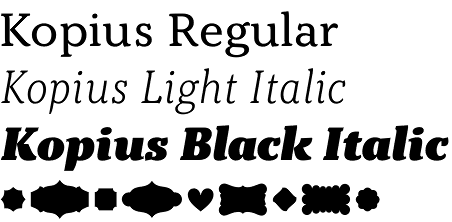
Kopius by Sibylle Hagmann – a typeface with great ambiance
Kopius is a contemporary serif font family designed by the US based designer Sibylle Hagmann – a graduate of Basel School of design, and published by her Kontour type foundry. This is her debut on our site and we hope to review plenty more of her projects. Apart from Kopius, her font collection includes typefaces like Odile, Axia, Elido and the award winning Cholla. The main interest of Sibylle Hagmann is to create unique typefaces with great focus on details such as individual letterforms and glyph systems.
Her latest work – Kopius font is inspired by the East German typeface Liberta – an Antigua type family, designed by Herbert Thannhaeuser in the 1950’s. Like its predecessor, Kopius is a very functional face that offers one-of-a-kind novel glyph construction. Its robust characters, round and open counters and texture-rich look create great ambiance and provoke feelings of friendliness and relaxation while the slender curved stems account for pleasant and easy reading. Kopius’ colorful appearance creates the illusion of brush stroke, which adds to its unique individuality. All that said, Kopius could be perfect for multiple purposes including display and editorial use and especially for packaging and branding.
Sibylle Hagmann spared no effort to make sure that Kopius will be up to plenty of tasks. The family comprises of 16 fonts. Those include seven weights – Light, Book, Regular, Semibold, Bold, Extrabold and Black, all with their respective Italics. Apart from them, there are two extra fonts with labels and box headings, which could be great solutions for packaging purposes. OpenType features include small caps, fractions, figure sets and more.